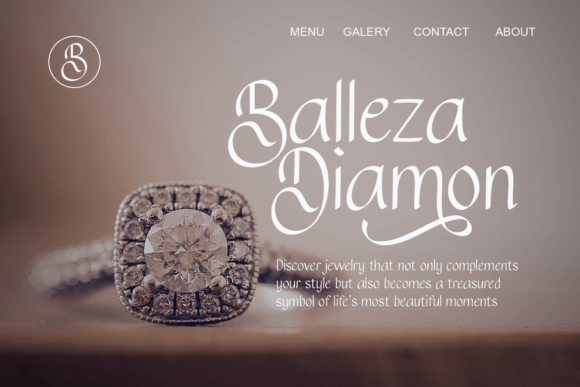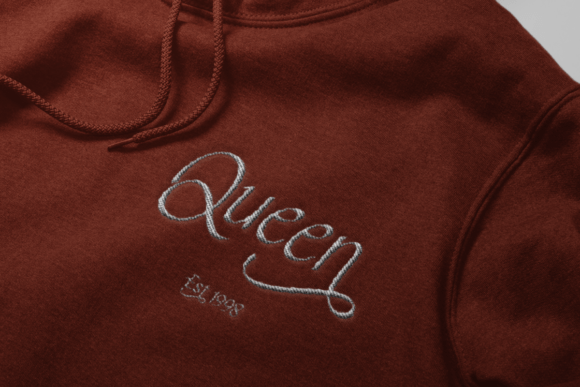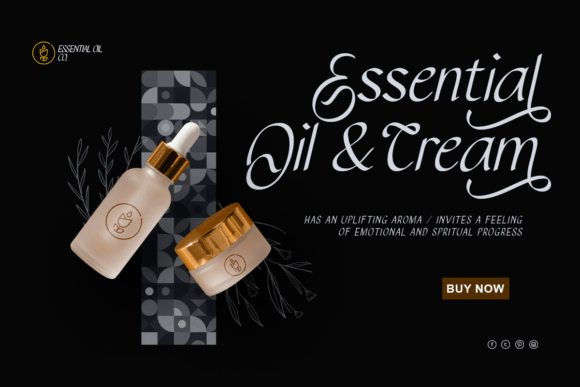
Introduction to Jagat Bumi Font
Have you ever found yourself rummaging through your design library, searching for the perfect font to give your project that extra oomph? You know, that elusive combination of style and sophistication that makes your design stand out from the crowd? For designers, this is a familiar struggle, but one that’s about to become a whole lot easier with the introduction of the Jagat Bumi Font.
This stunning script font is more than just a pretty face – it’s a high-quality design resource that’s perfect for a wide range of creative projects, from branding and logos to packaging and invitations. With its elegant, soft, and naturally handcrafted feel, Jagat Bumi Font is a valuable addition to any designer’s toolkit, offering a unique and stylish look that’s sure to impress.
Key Features of Jagat Bumi Font
- High-quality design resource ideal for creative projects, offering a unique aesthetic.
- Font size: scalable, making it suitable for use in various contexts, from small text to large headings.
- Resolution: high-resolution, ensuring crisp and clear display, even at larger sizes.
- Unique characteristics: a blend of traditional and modern elements, making it a standout choice for designers seeking a distinctive look.
Honest Review: Jagat Bumi Font
As a designer, I’m always on the lookout for high-quality design resources that can elevate my creative projects. Recently, I stumbled upon the Jagat Bumi Font, and I’m excited to share my honest review with you.
What works well: ✨ The Jagat Bumi Font has a unique and modern design that’s perfect for creative projects that require a touch of sophistication. The font’s clean lines and minimalist style make it a great choice for branding, logos, and digital design. I also appreciate that the font comes with a transparent background, which makes it easy to work with.
- Unique and modern design
- Minimalist style
However, there are a few limitations: ⚠️ The font is only available for free download, which means you may need to upgrade to a premium version for more features. Additionally, the font may not be suitable for projects that require a bold or playful tone.
Overall, I’m impressed with the Jagat Bumi Font, and I think it’s a great addition to any designer’s toolkit. While it may have some limitations, its unique design and high-quality features make it a valuable resource for creative projects.
Tips for Getting the Most Out of Jagat Bumi Font
Jagat Bumi Font is perfect for creating designs for social media, presentations, posters, logos, typography, and illustrations. It’s also great for creating professional-looking documents, reports, and presentations. This font is a valuable addition to any designer’s toolkit and can help elevate your creative project to the next level.